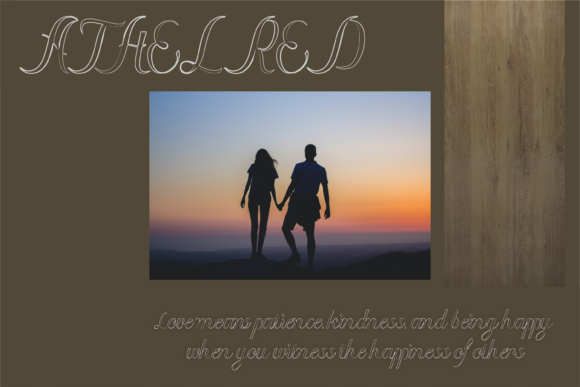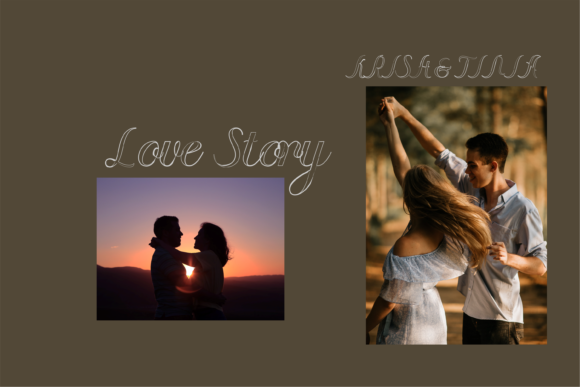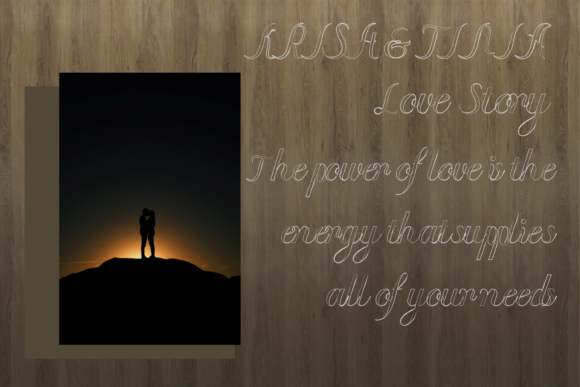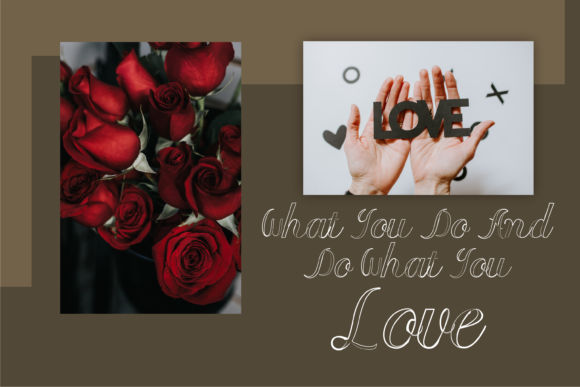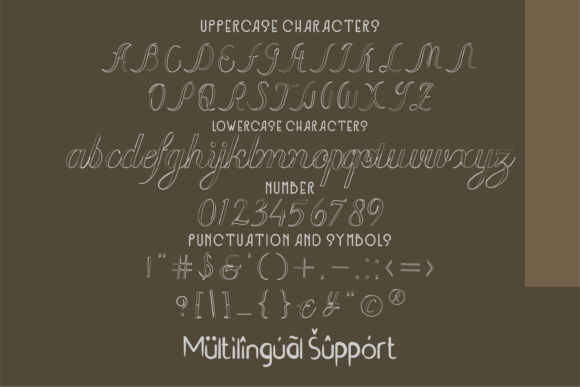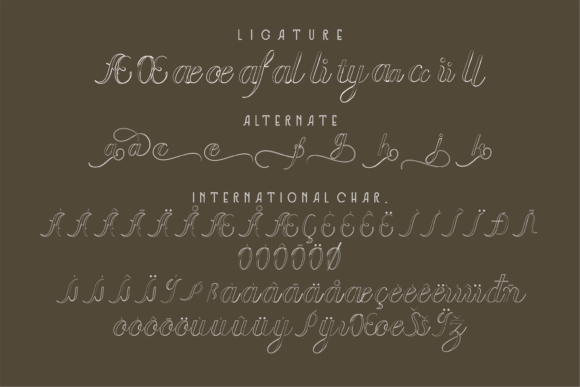
Athelred Font: Adding a Touch of Romance to Your Designs
In the world of typography, fonts play a crucial role in conveying the tone and personality of a design. For designers and crafters looking to add a romantic feel to their projects, Athelred font is an excellent choice. This enchanting handwritten font has gained popularity for its versatility and aesthetic appeal. In this article, we’ll explore the features and applications of Athelred font, and why it’s a must-have for your design arsenal.
What is Athelred Font?
Athelred is a beautiful, handwritten script font that exudes elegance and sophistication. Its unique charm lies in its flowing strokes, delicate connections, and subtle imperfections, which give it a personal and organic feel. This font is perfect for designers who want to add a touch of whimsy and romance to their designs.
Key Features of Athelred Font
- Handwritten style: Athelred font boasts a genuine handwritten look, making it ideal for designs that require a personal touch.
- Versatile: This font can be used for a wide range of applications, from greeting cards and invitations to headlines and titles.
- Romantic feel: Athelred font is guaranteed to add a romantic touch to your designs, making it perfect for Valentine’s Day, wedding, or anniversary-themed projects.
- Elegant and sophisticated: The font’s flowing strokes and delicate connections give it an air of elegance, making it suitable for high-end designs.
Applications of Athelred Font
Athelred font’s versatility makes it suitable for various design projects, including:
- Greeting cards: Add a personal touch to your greeting cards with Athelred font’s charming handwritten style.
- Invitations: Create beautiful wedding invitations, birthday invitations, or party invites with this elegant font.
- Headlines and titles: Use Athelred font to add a touch of sophistication to your headlines and titles.
- Branding and packaging: This font can be used to create unique and eye-catching branding and packaging designs.
- Digital and print media: Athelred font can be used in both digital and print media, including social media graphics, blogs, and magazines.
Tips for Using Athelred Font
To get the most out of Athelred font, here are some tips to keep in mind:
- Pair with complementary fonts: Combine Athelred font with simple, sans-serif fonts to create a beautiful contrast.
- Experiment with colors: Try pairing Athelred font with soft, pastel colors or rich, bold hues to create a unique look.
- Use it sparingly: Athelred font is best used sparingly, as its elegance and sophistication can be overwhelmed by too much text.
Athelred font is a stunning handwritten script font that can add a touch of romance and elegance to your designs. Its versatility, unique charm, and aesthetic appeal make it a must-have for designers and crafters. Whether you’re creating greeting cards, invitations, or headlines, Athelred font is sure to impress. So, why not give it a try and see how it can elevate your designs?
In conclusion, Athelred font is a beautiful and enchanting handwritten font that can add a romantic feel to your designs. Its versatility, elegance, and sophistication make it a valuable addition to any designer’s arsenal. So, go ahead and give Athelred font a try – you won’t be disappointed!